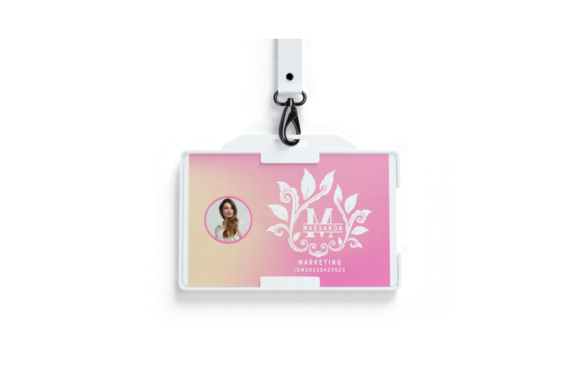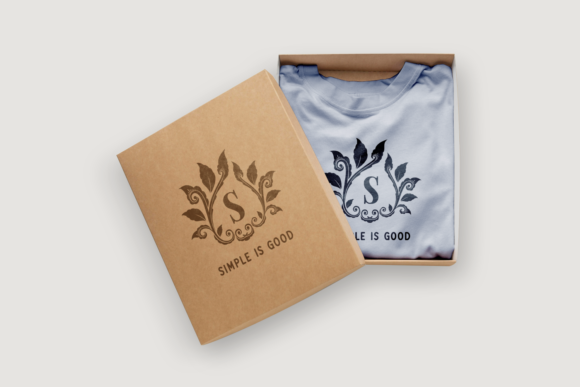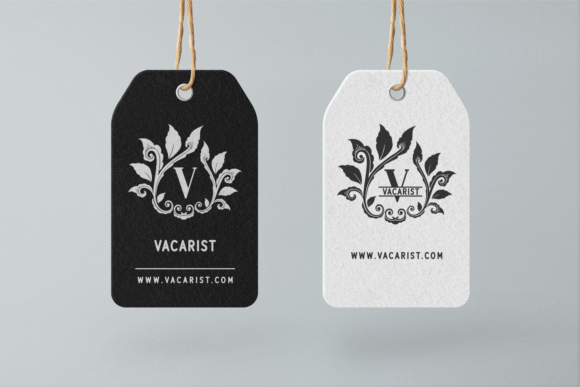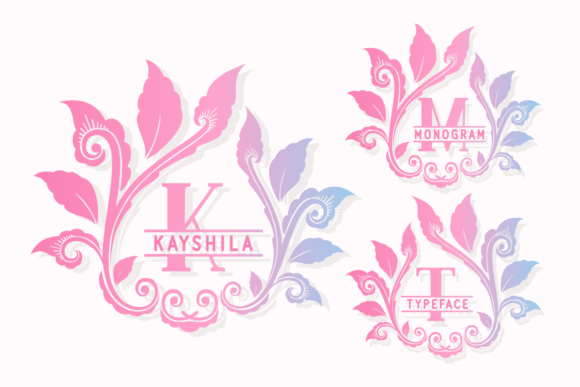
Introduction to Kayshila Font
Kayshila is a gorgeous and delicate decorative font.
You can use it for various projects, such as blog posts, logos, branding, ads, invitations, greeting cards, planners, photo albums, decorations, and much more .
Key Features of Kayshila Font
Why Choose Kayshila Font?
Kayshila Font offers exceptional quality and versatility, making it a valuable addition to your design toolkit. Whether you’re creating for personal projects or commercial use, Kayshila Font delivers professional results.